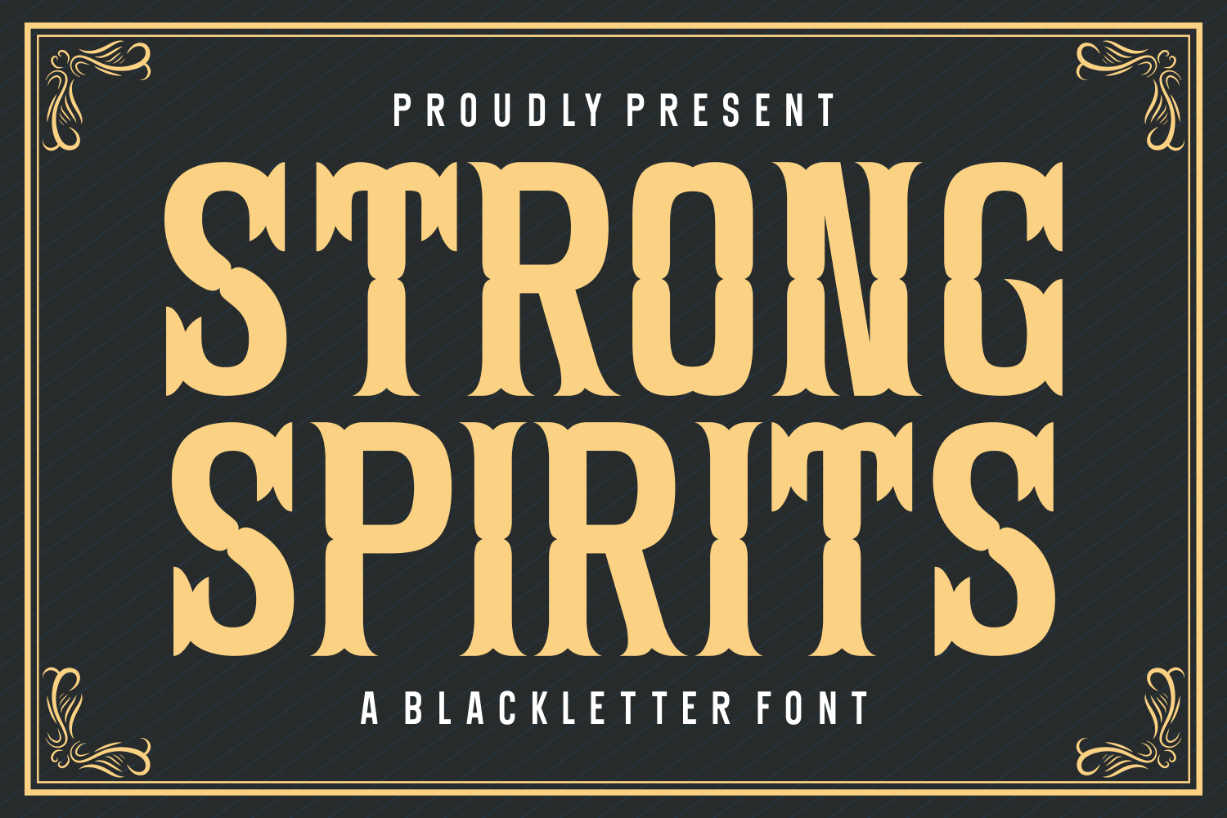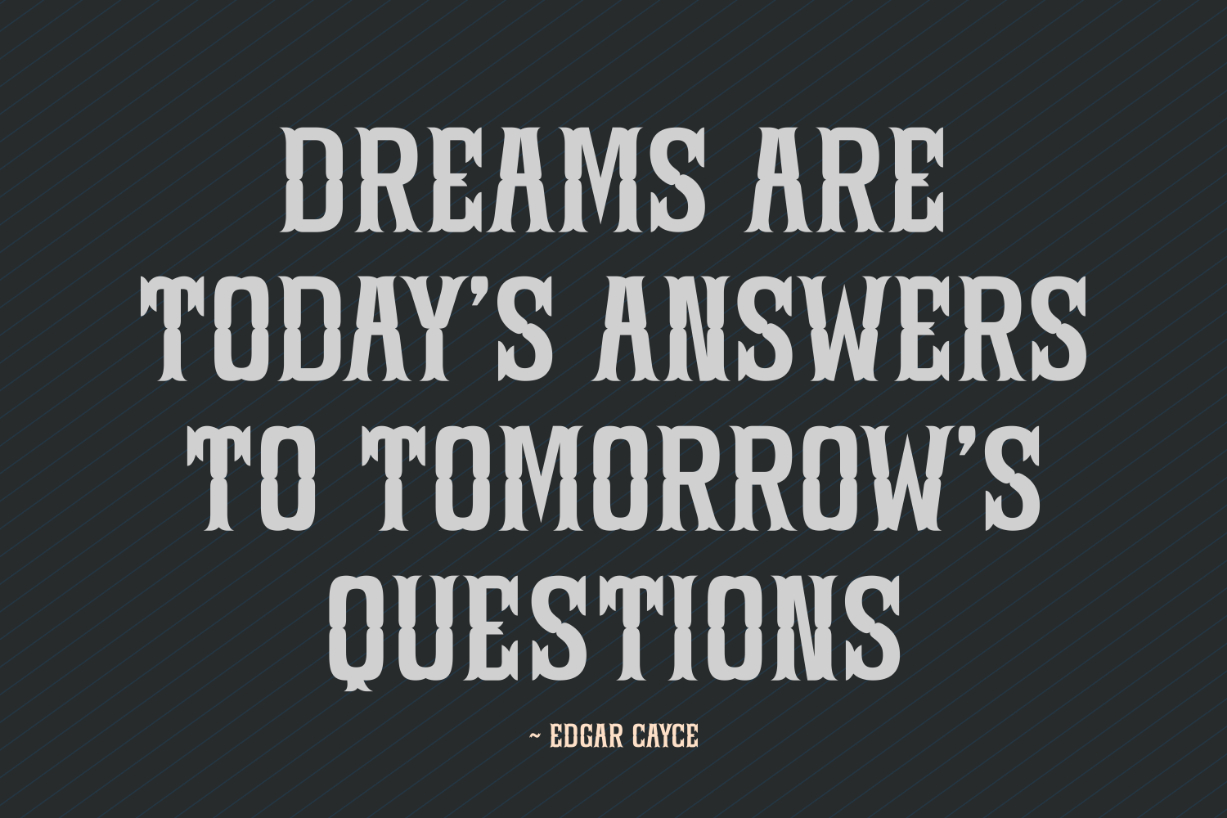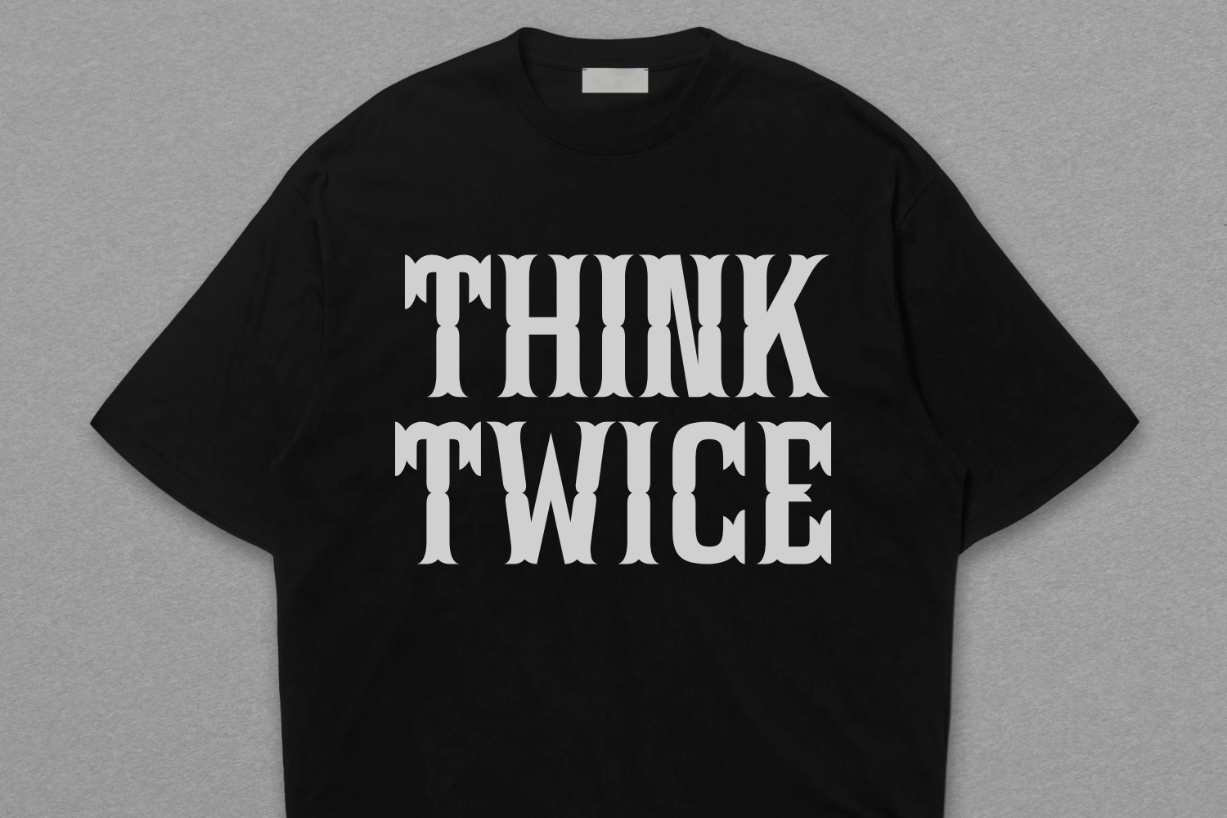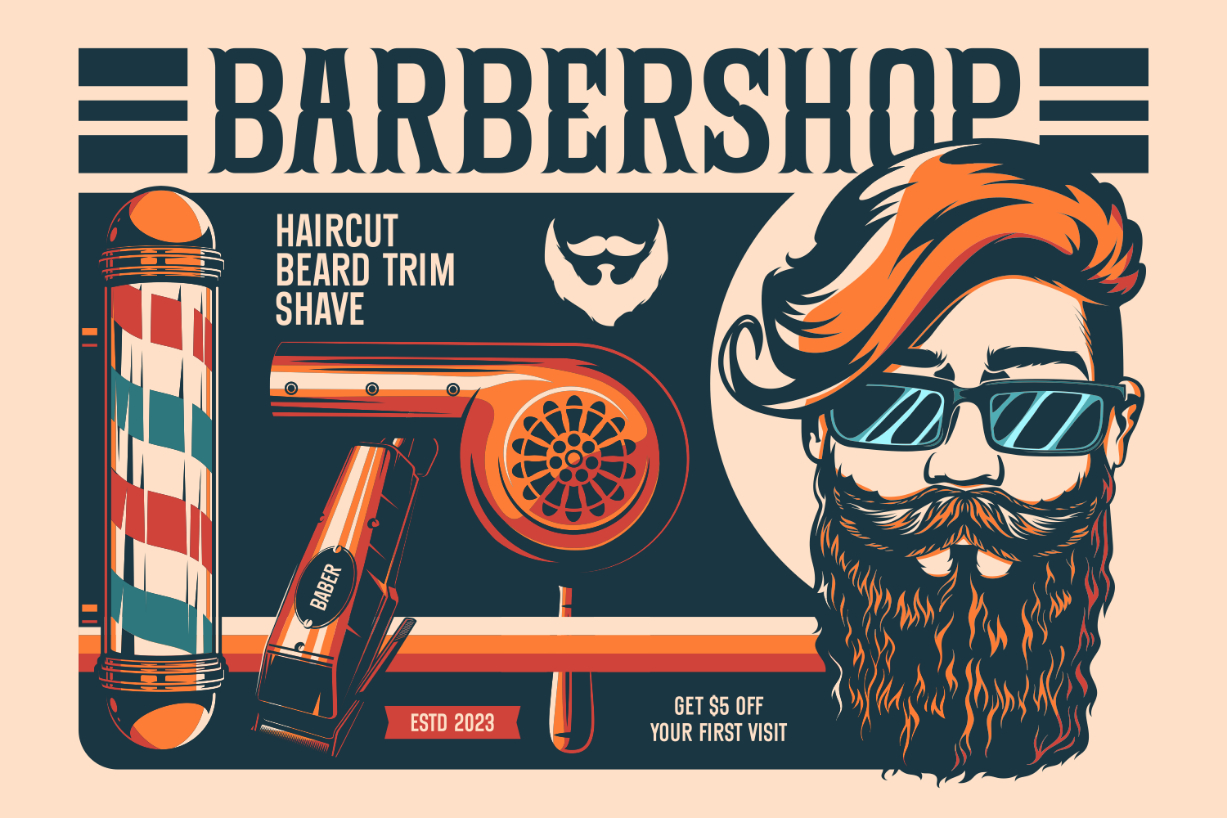
Strong Spirits Font
About Strong Spirits Font
Strong Spirits is a thick and eye-catching blackletter font. Add a bold and striking look to your typography projects with this impressive typeface that has the potential to elevate any creation! Choose it for your next creative project, and you will love the results it delivers.